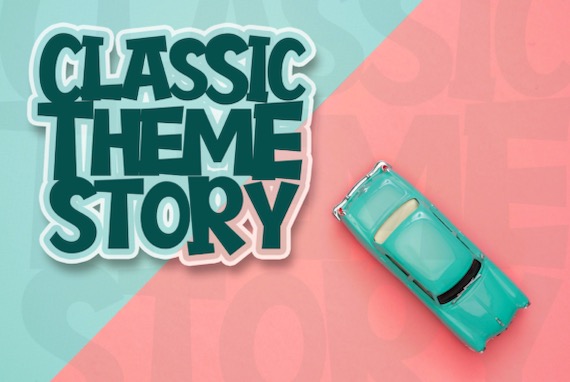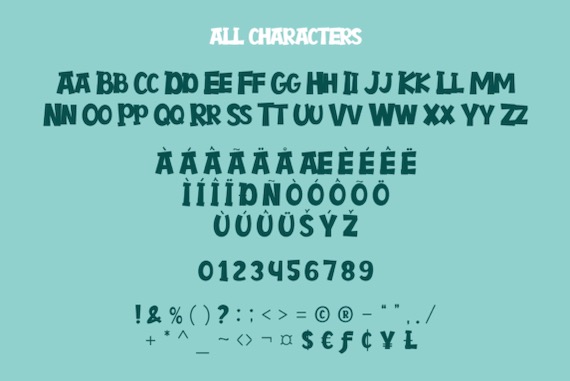
Introducing a new modern Display font, Micky Funky. It is a great luxury and classy typeface that was created and shared by wallby.hand. Micky Funky Font is perfect for children-themed designs, logos, titles, headlines, banners, and so on.
Micky Funky Display Font
Designer Name: Wallby.hand